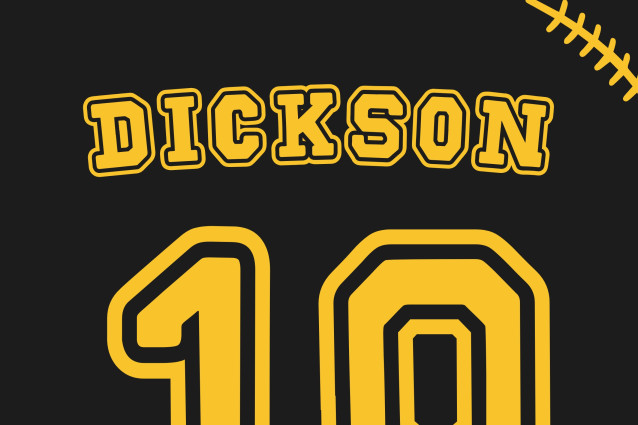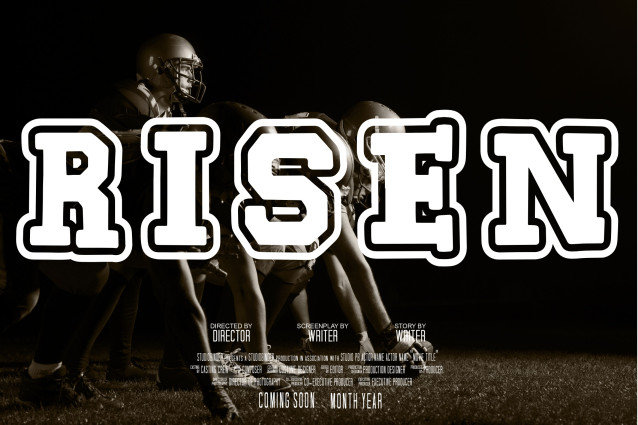
Echoline Varsity Font
Echoline Varsity is a bold, confident display font inspired by classic varsity lettering. With sharp serifs, clean geometry, and athletic appeal, this font brings team spirit and vintage sports aesthetics into modern design. It’s the perfect choice for sportswear branding, college-themed graphics, and standout headlines that demand attention.